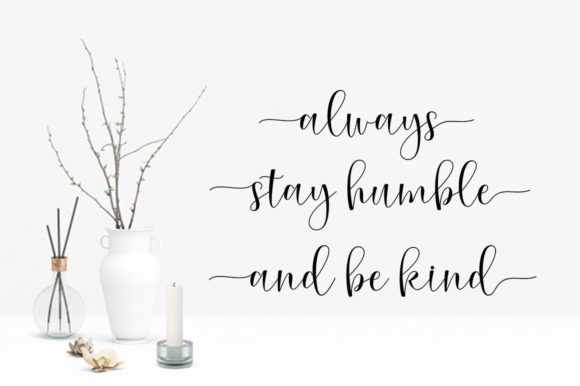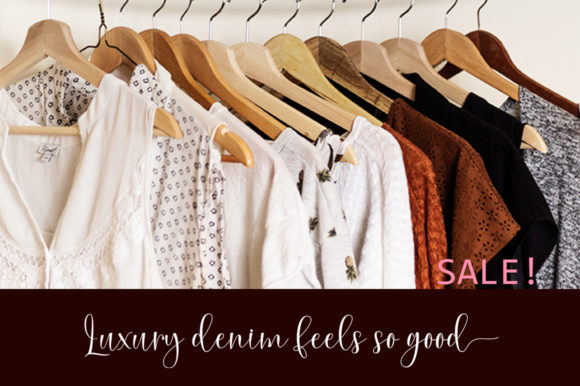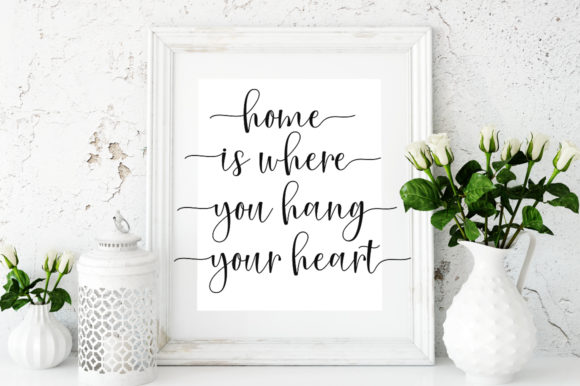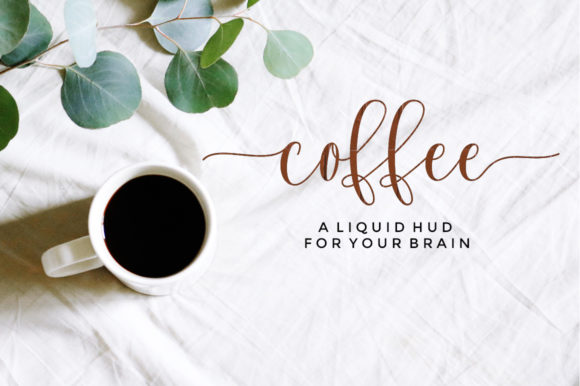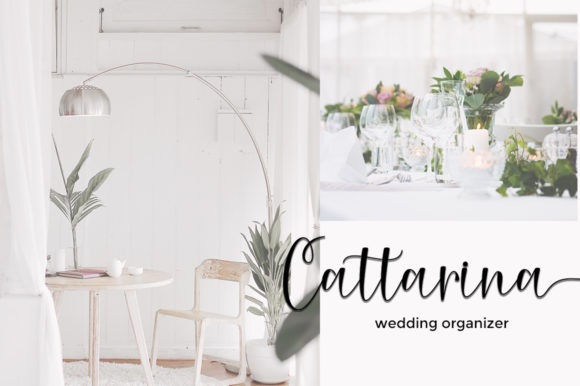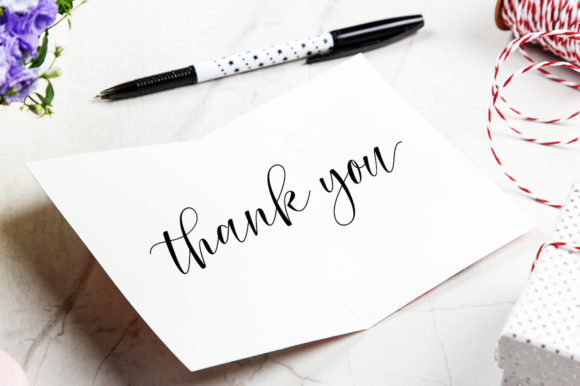
Alitha Font
About Alitha Font
Alitha is modern and casual script font. It has beautiful swashes and it is perfect for logos, product packaging, wedding invitations and much more!